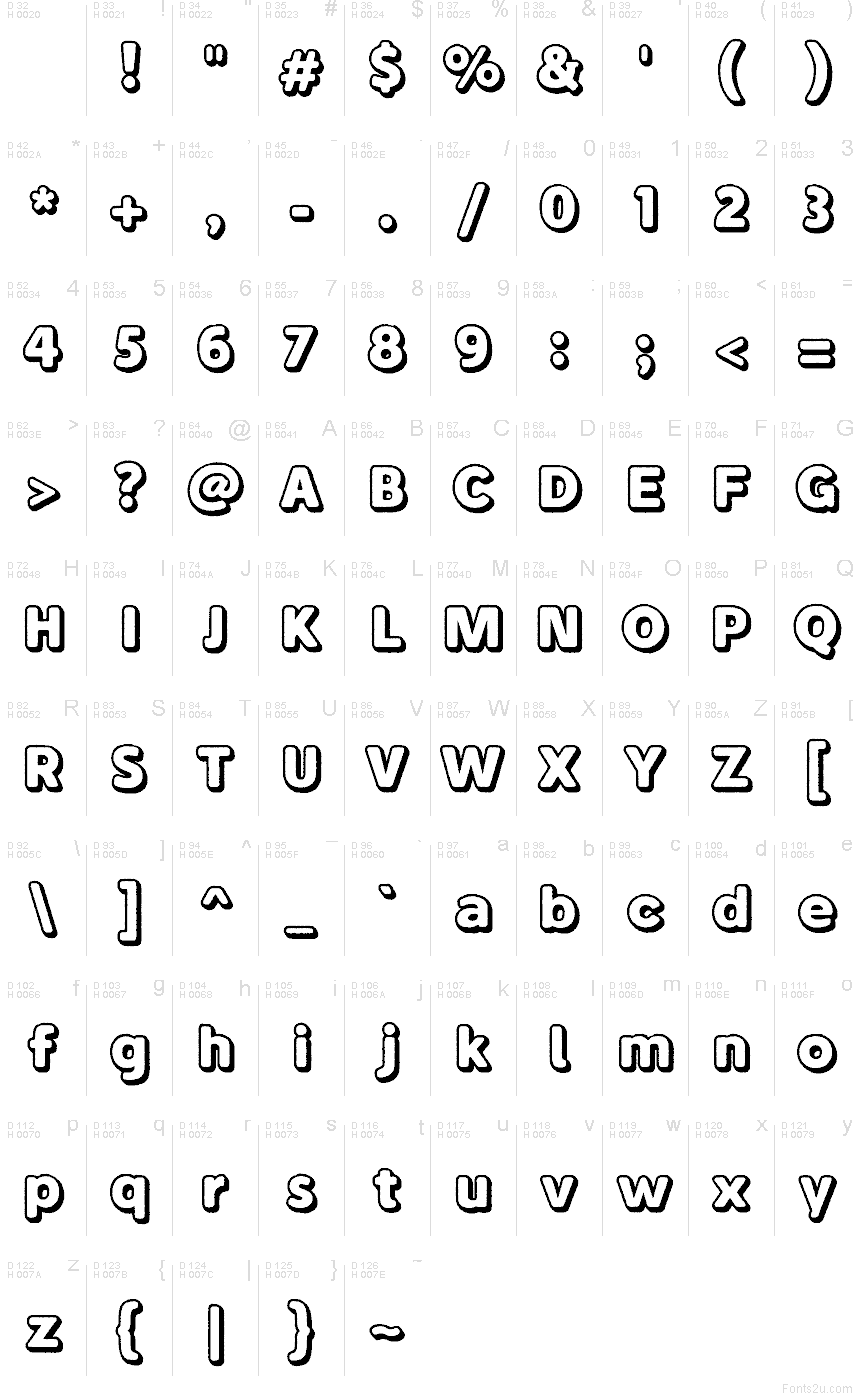
Buba-OutlineEroded
Buba Outline Eroded font by Genilson L. Santos is a free decorative outline typeface in the Buba family with a chunky, worn-in twist. Its puffy, rounded forms feel like inflated lettering that’s been scuffed, scratched, and photocopied one too many times, giving every word a soft yet gritty edge. The irregular ink-like outline adds movement and personality, so headlines look hand-crafted rather than sterile or over-polished.
Using Buba Outline Eroded, your text instantly picks up a playful, retro-grunge attitude that shines on posters, zines, stickers, album covers, kids’ event graphics, and bold social media titles. This free font thrives at large sizes where the eroded texture can really show. Pair it with a clean, simple sans serif for body copy to let Buba Outline Eroded grab all the attention while the supporting text stays clear and easy to read.
Buba comprises six fonts that can be combined in layers:
- Outline
- OutlineEroded
- Shadow
- ShadowEroded
- Stripes
- StripesEroded
Designed by Genilson Lima Santos